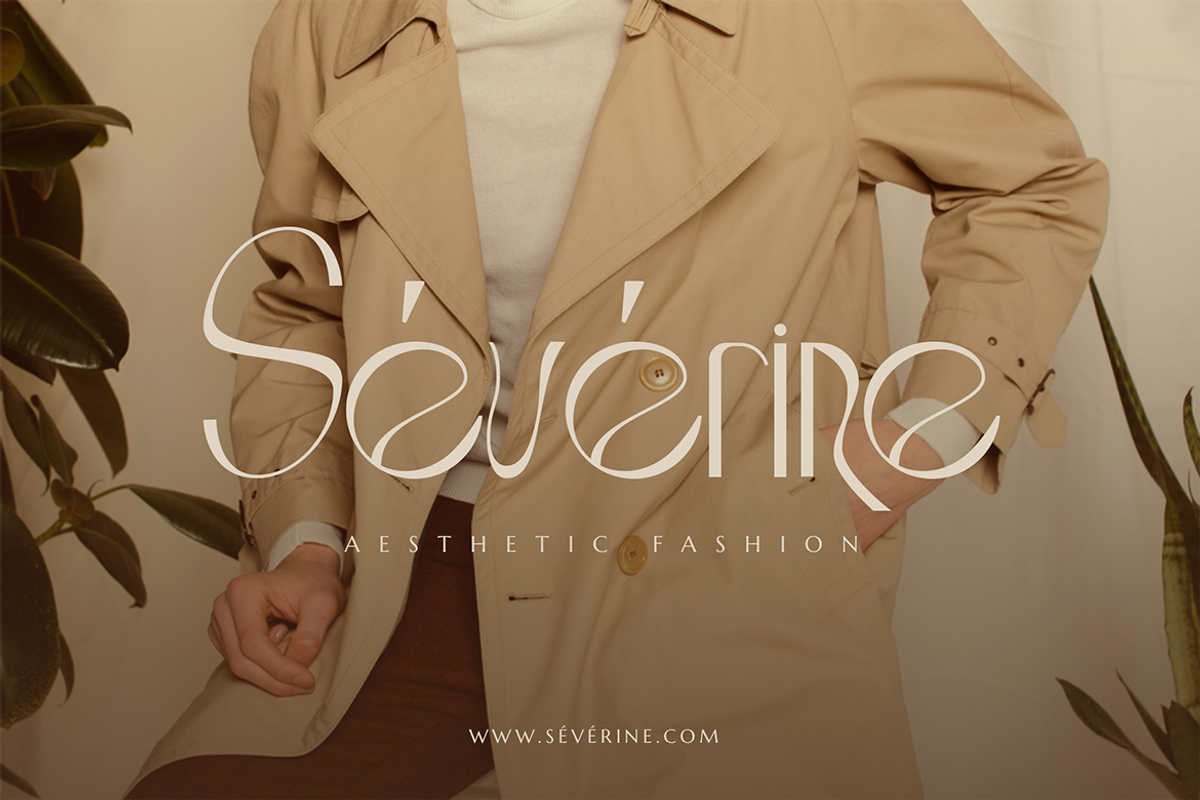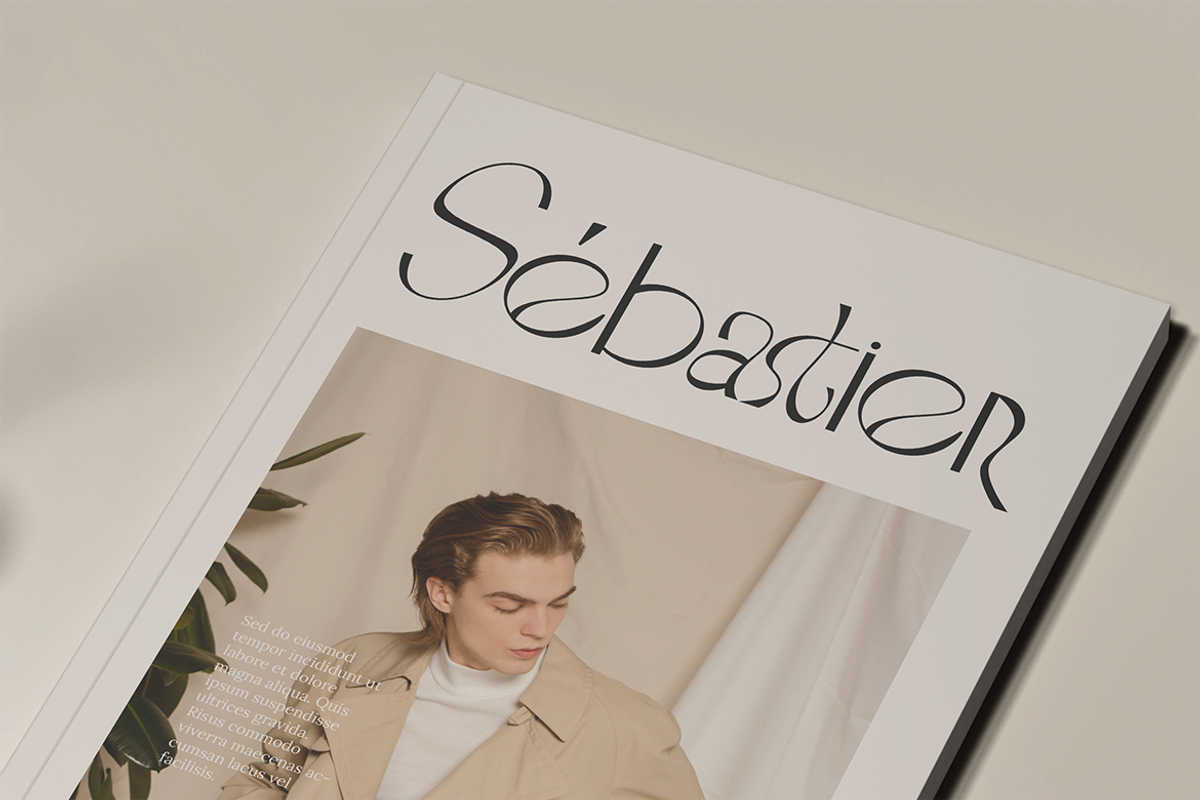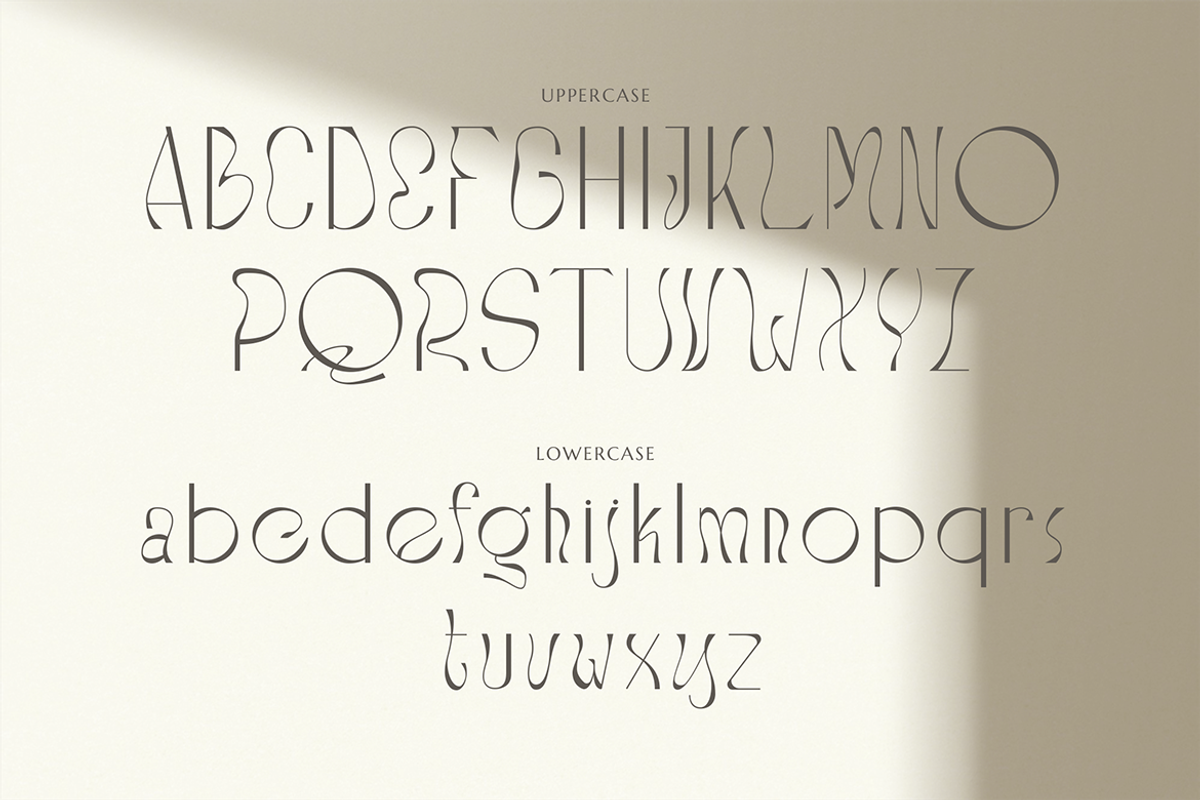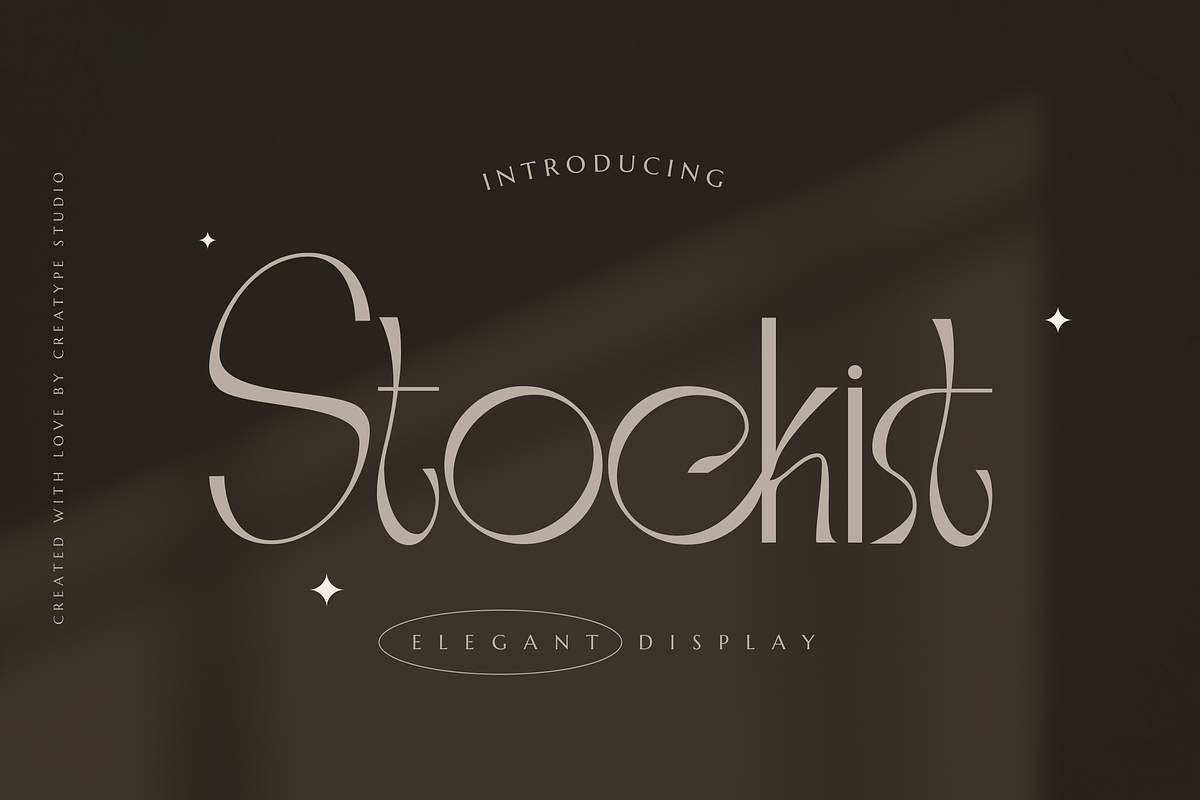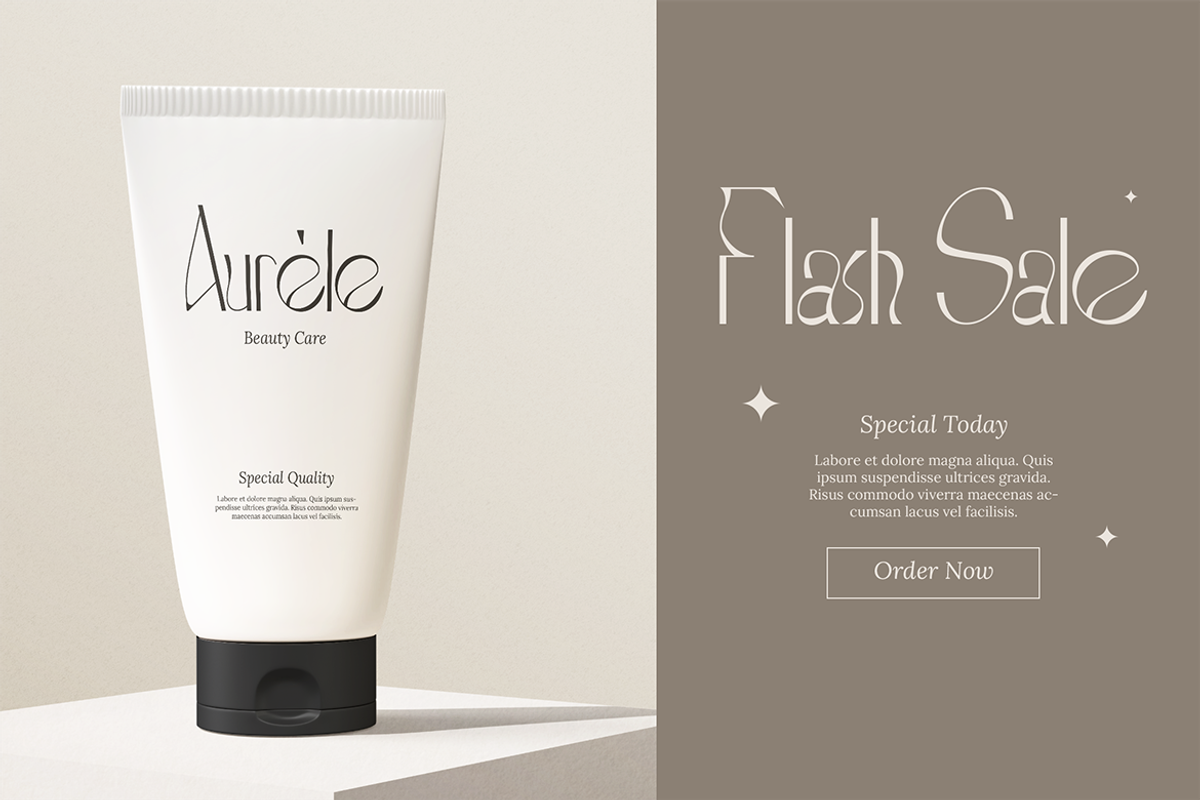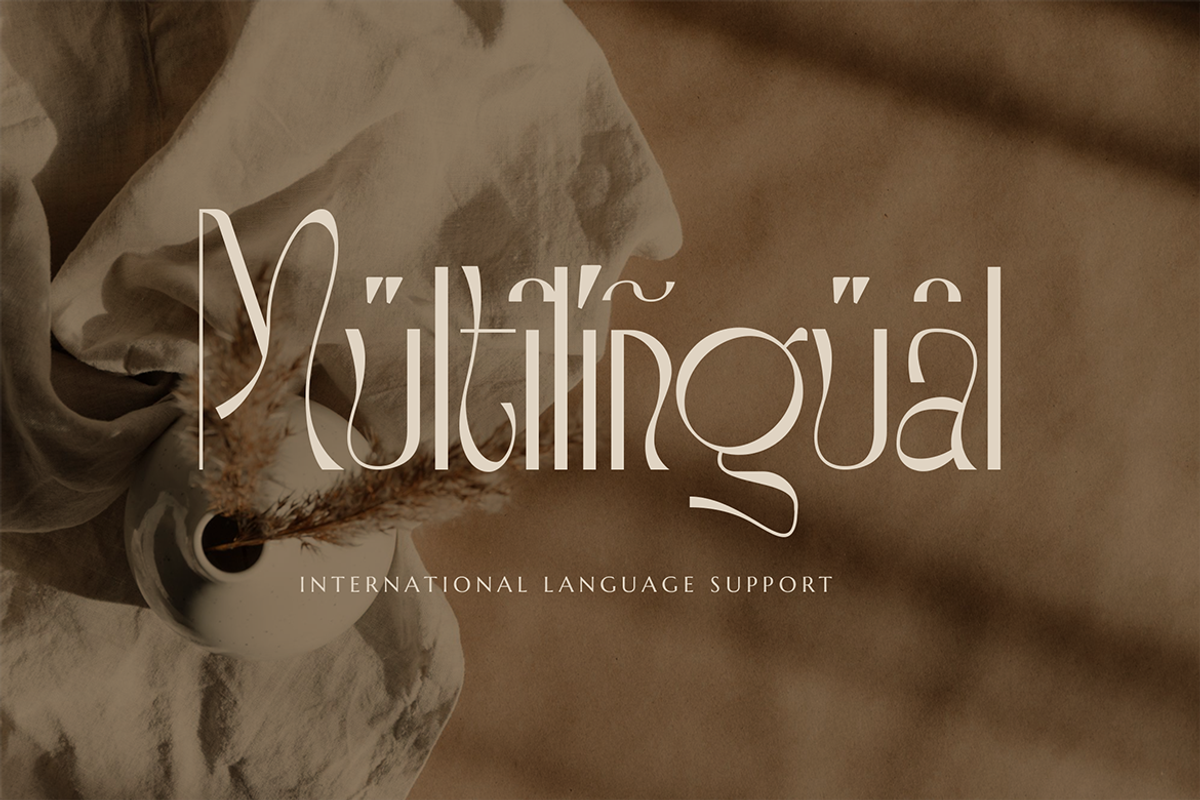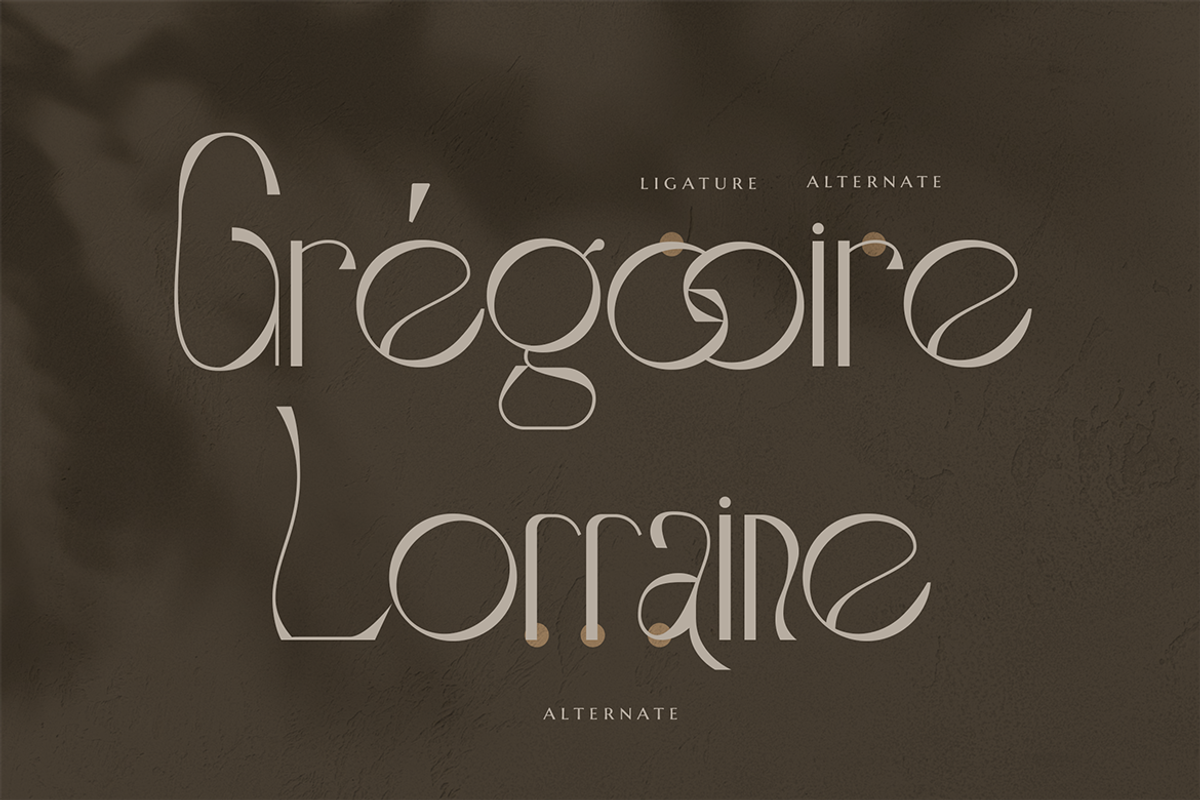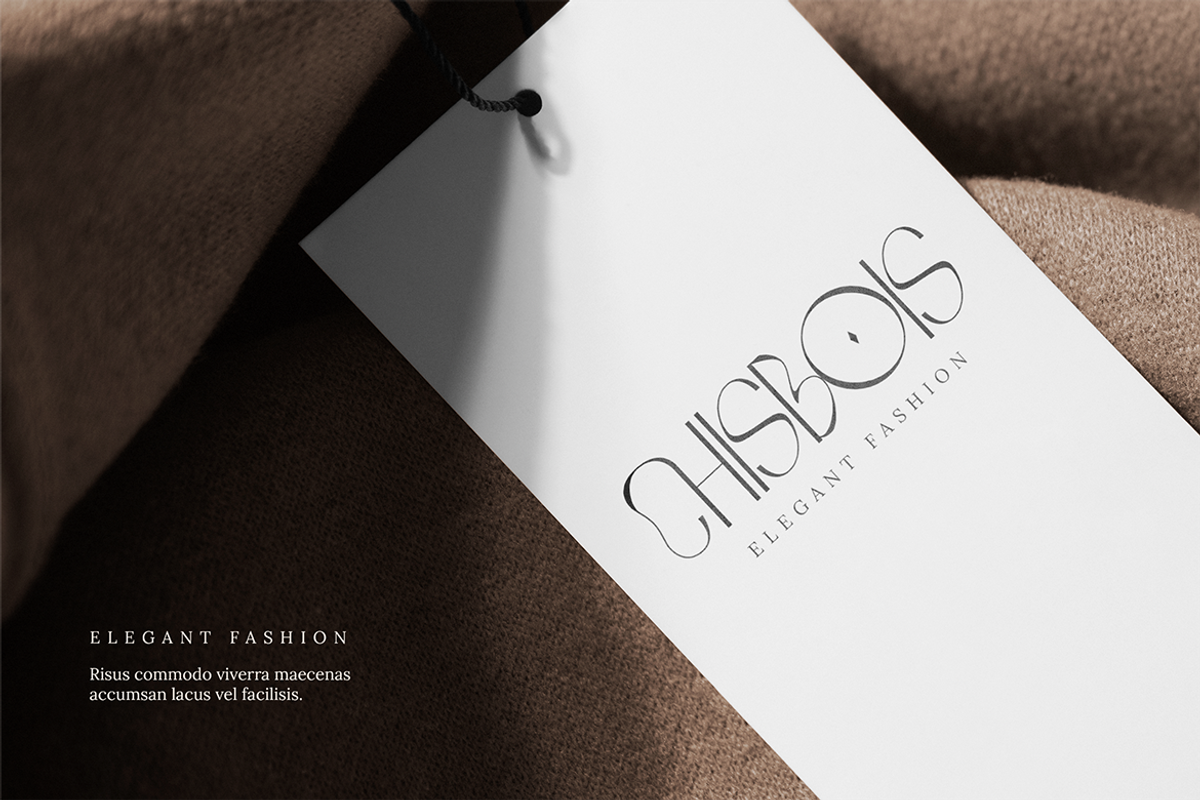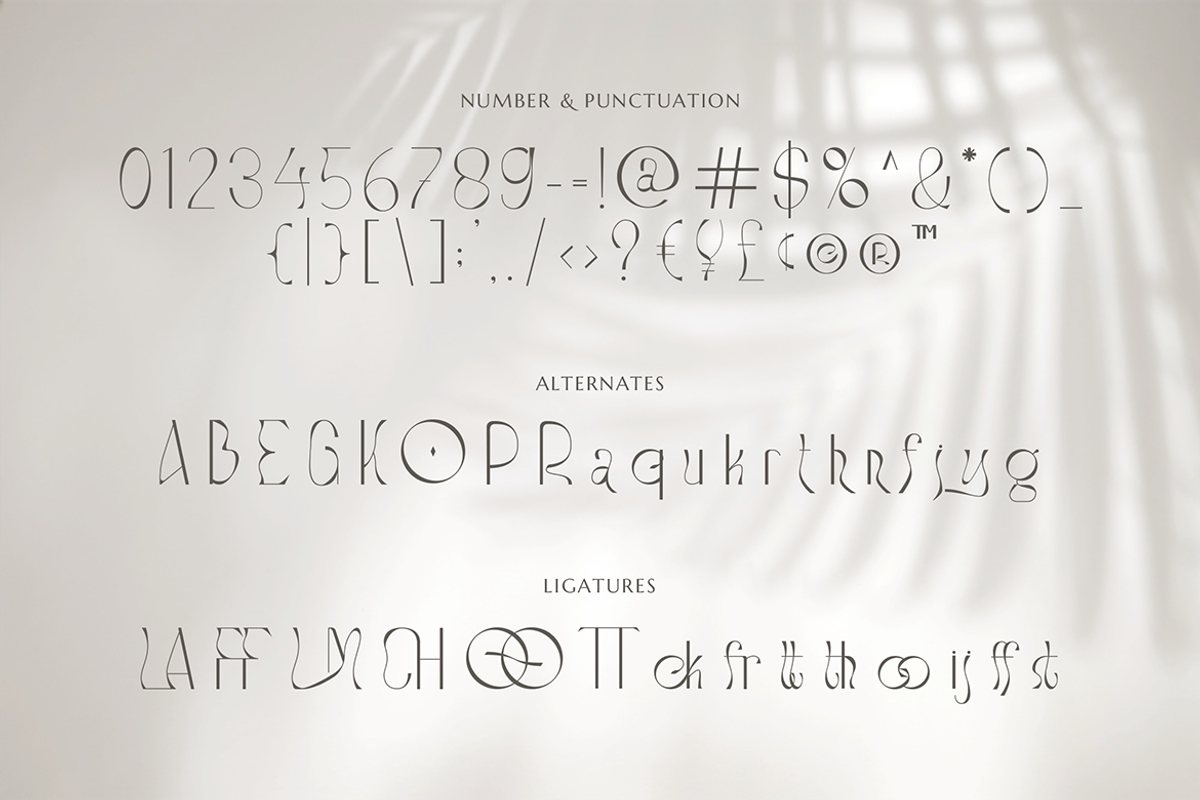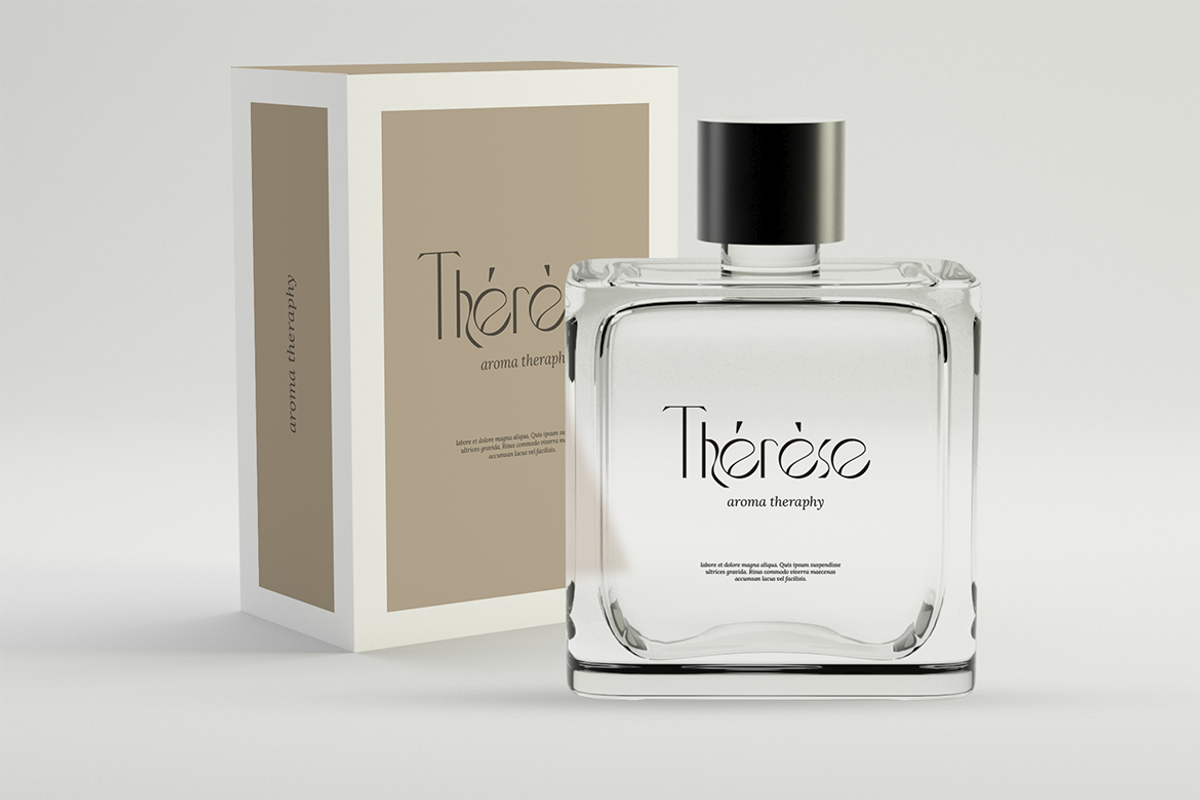
Stockist Elegant Display
Stockist, an Elegant display that is quite playful with a slight quirk typeface.
Stockist is perfect for branding projects, logos, wedding designs, social media posts, advertisements, product packaging, product designs, label, photography, watermark, invitation, stationery, and any projects that need handwriting taste.
- Ligature & Alternate